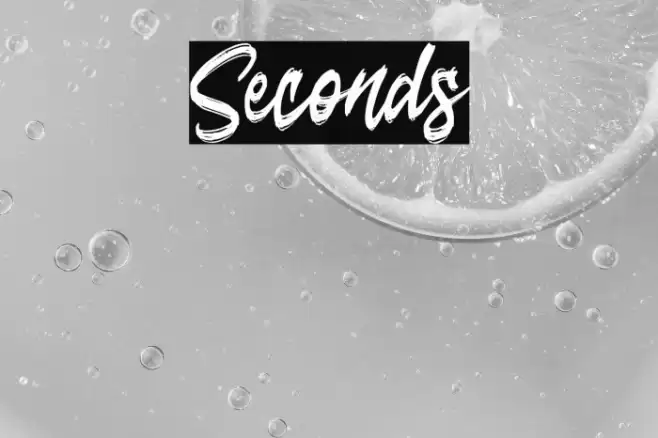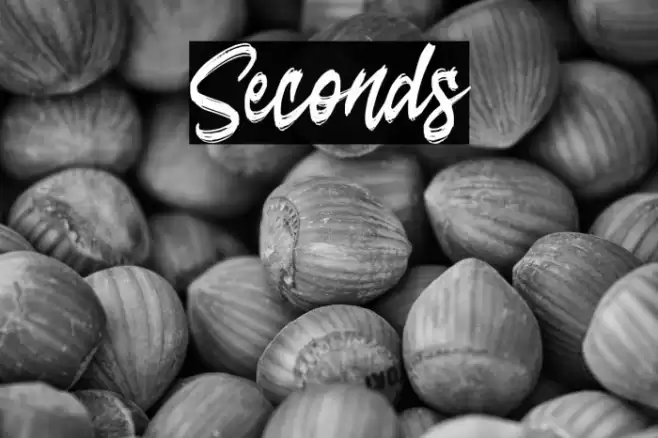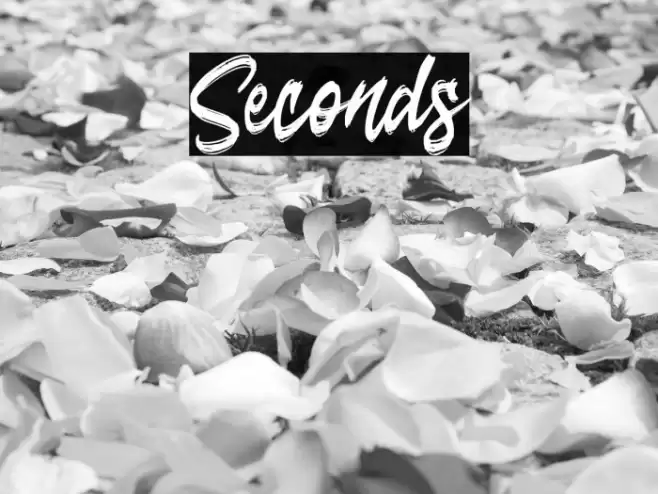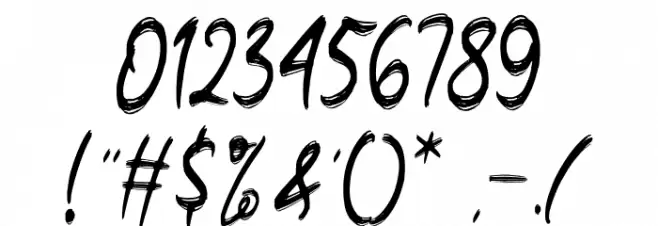
Seconds Font
Seconds Description
This font features a dynamic and energetic script style, characterized by bold, sweeping strokes that convey a sense of movement and flair. The letters are slightly slanted, giving it a casual yet sophisticated appearance. The uppercase letters are bold and expressive, while the lowercase letters maintain a consistent flow, enhancing readability. The numbers and special characters are designed to match the overall style, ensuring a cohesive look across all text elements. This font's unique brush-like texture adds a handcrafted feel, making it suitable for projects that require a personal touch.
A bold, energetic script font with sweeping strokes and a handcrafted feel from Uncategorized fonts.
- Proposed Projects: Ideal for branding, packaging, invitations, and social media graphics.